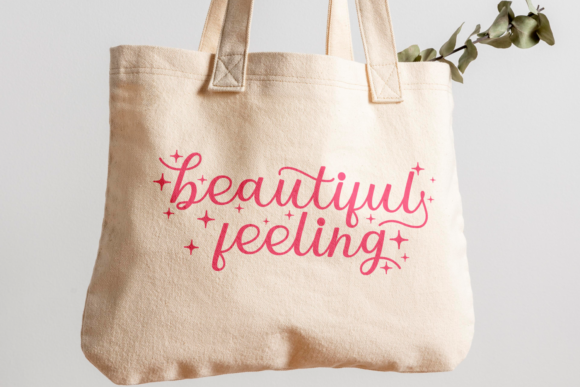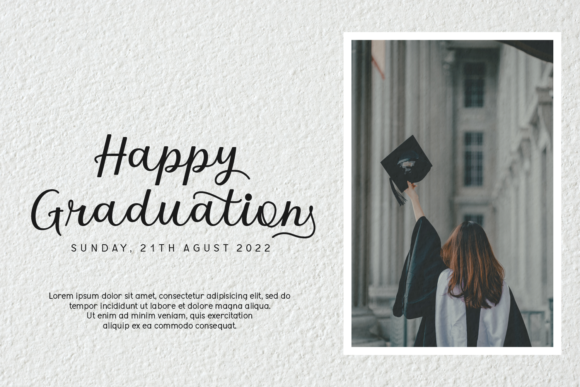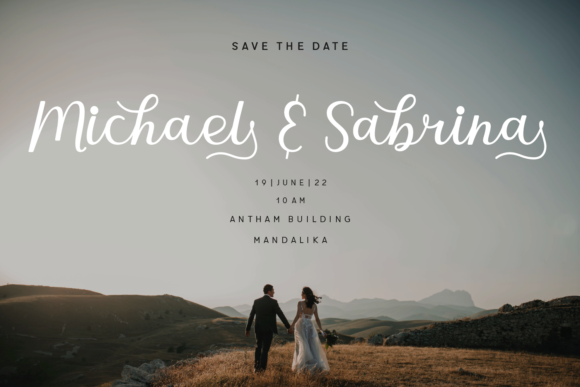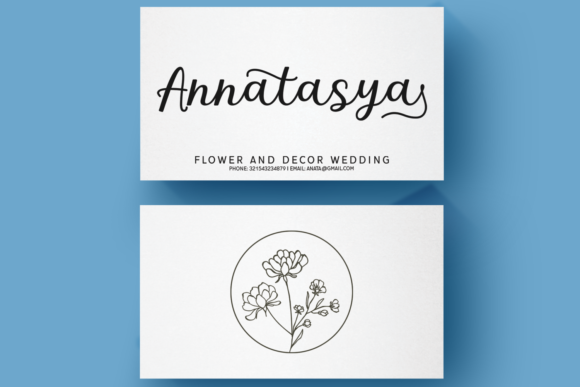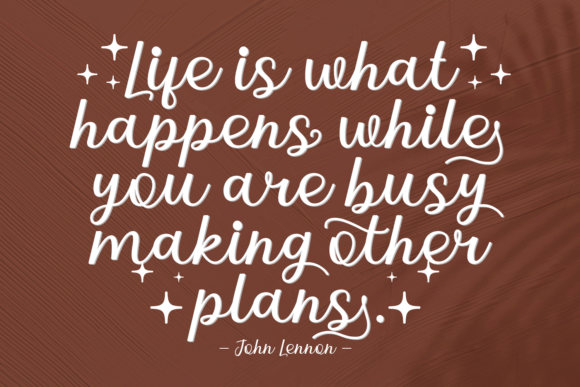
Introducing Delicious Toast: The Perfect Modern Script Font for Your Creative Projects
Are you a designer, crafty person, or simply someone who loves to create beautiful things? Look no further! We’re excited to introduce Delicious Toast, a stunning modern script font that will add a touch of elegance and sophistication to your projects. With its beautiful calligraphy-inspired letters, Delicious Toast is perfect for creating gorgeous wedding invitations, birthday cards, personal branding, logos, signs, quotes, news, posters, and so much more.
What Makes Delicious Toast So Special?
Delicious Toast is a modern script font that boasts a very elegant calligraphy touch. Its unique and creative design makes it perfect for adding a personal touch to your projects. Whether you’re a professional designer or a crafty person, this font is sure to inspire you to create something truly special. With Delicious Toast, you can add a touch of sophistication and glamour to your designs, making them stand out from the crowd.
Uses for Delicious Toast
Delicious Toast is an incredibly versatile font that can be used for a wide range of projects. Here are just a few ideas to get you started:
- Wedding Invitations: Create beautiful and elegant wedding invitations that will set the tone for the big day.
- Birthday Cards: Design personalized birthday cards that will make the recipient feel special.
- Personal Branding: Use Delicious Toast to create a unique and memorable brand identity that will help you stand out.
- Logos: Create stunning logos that will help your business or brand stand out.
- Signs: Design eye-catching signs that will grab attention and make a lasting impression.
- Quotes: Create inspiring and beautiful quotes that will motivate and uplift.
- News: Use Delicious Toast to create engaging and easy-to-read news articles.
- Posters: Design stunning posters that will grab attention and make a lasting impression.
Why Choose Delicious Toast?
There are many reasons why Delicious Toast stands out from the crowd. Here are just a few:
- Unique Design: Delicious Toast boasts a unique and creative design that will add a touch of elegance and sophistication to your projects.
- Elegant Calligraphy Touch: The font’s elegant calligraphy touch makes it perfect for creating beautiful and inspiring designs.
- Versatile: Delicious Toast is incredibly versatile and can be used for a wide range of projects.
- Easy to Read: The font is easy to read, making it perfect for body text and headlines.
Tips for Using Delicious Toast
Here are a few tips for getting the most out of Delicious Toast:
- Use it Sparingly: Delicious Toast is a beautiful font, but it can be overwhelming if used too much. Use it sparingly to add a touch of elegance and sophistication to your designs.
- Pair it with Other Fonts: Delicious Toast pairs well with other fonts, so don’t be afraid to experiment with different combinations.
- Experiment with Colors: Delicious Toast looks stunning in a variety of colors, so don’t be afraid to experiment and find the perfect color for your design.
Delicious Toast is a stunning modern script font that is perfect for designers, crafty people, and anyone who loves to create beautiful things. With its elegant calligraphy touch and versatile design, it’s perfect for creating a wide range of projects, from wedding invitations and birthday cards to personal branding and logos. So why wait? Grab Delicious Toast today and start creating something truly special!